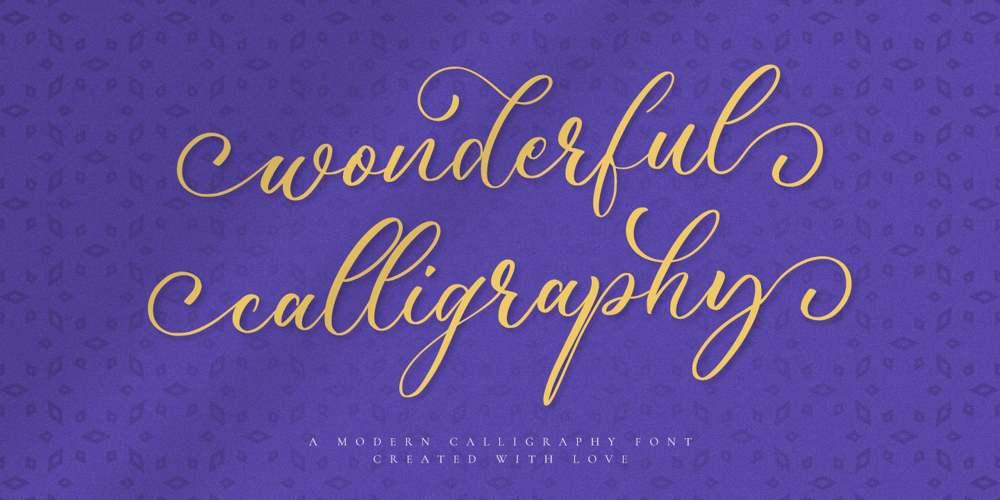
Femylona
Femylona font
Femylona Font Family was designed by Hayinah and published by Rockboys Studio. Femylona contains 1 styles and family package options. Wonderful Calligraphy is a beautiful and light handwritten font with a unique feel and a stunning impact. It will add a luxury spark to any design project that you wish to create!